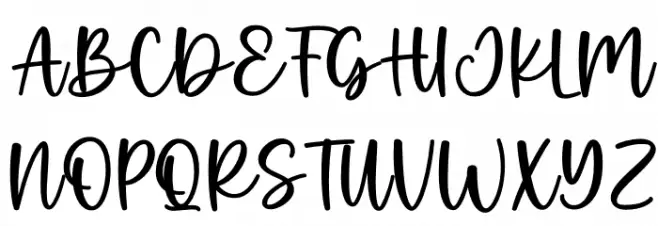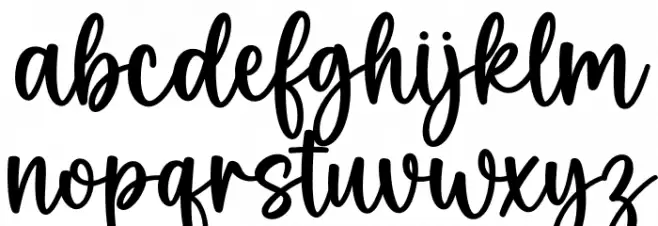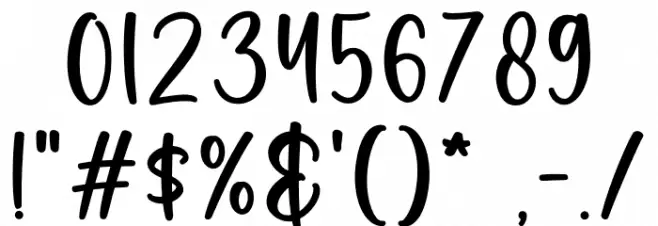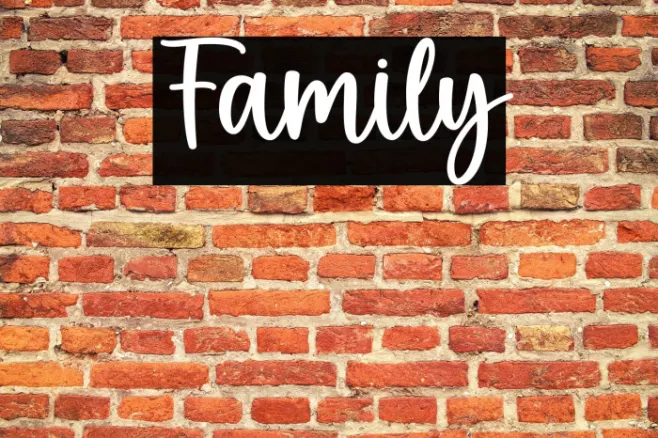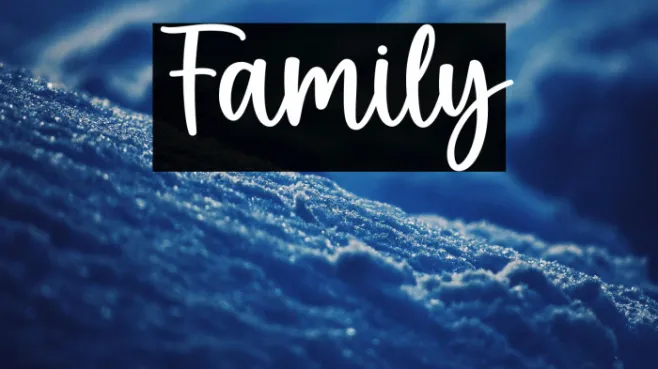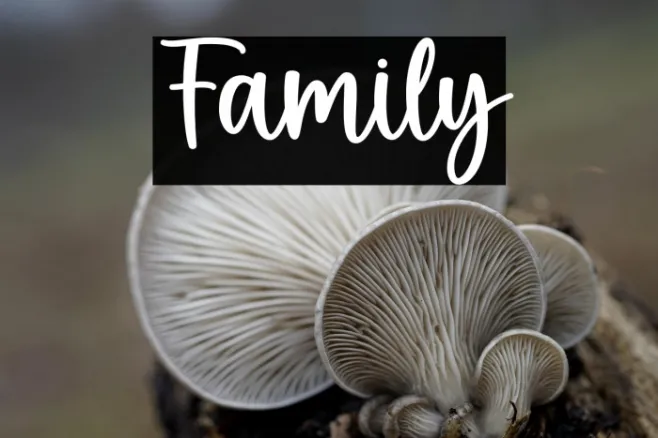
Family
This font exudes a playful and casual handwritten style, characterized by its flowing, cursive-like letters. The uppercase and lowercase letters maintain a consistent, smooth stroke, giving it a cohesive and harmonious appearance. The characters are slightly slanted, adding to the informal and friendly vibe. The numerals and special characters follow the same style, ensuring uniformity across all glyphs. This font is perfect for projects that require a personal touch, such as invitations, greeting cards, or social media graphics.
A playful, handwritten-style font with smooth, flowing strokes.
- Proposed Projects: Ideal for invitations, greeting cards, social media graphics, and personal branding.
- Overall Style: Casual, Playful
- Use Case: Headlines, Logos, Invitations